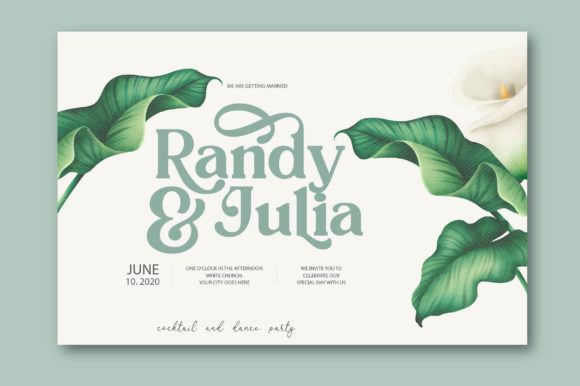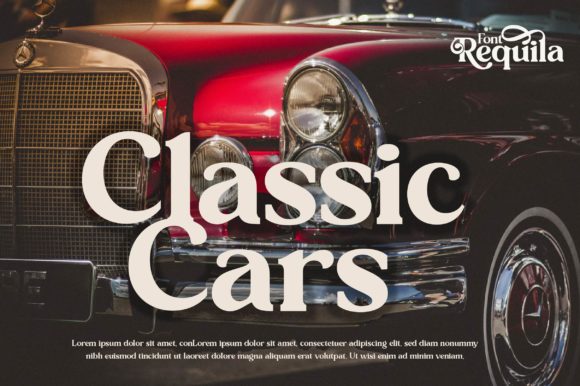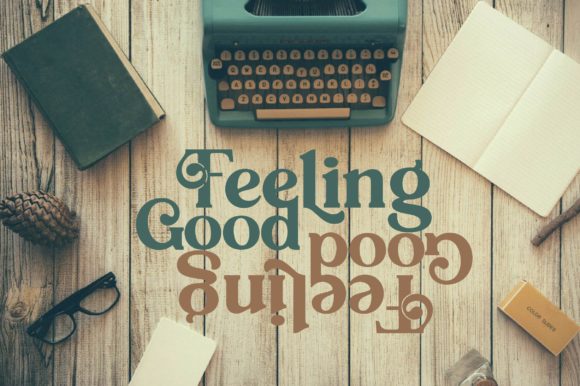
Introduction to Requila Font
Requila feels playfully nostalgic and delivers an incredible vintage aesthetic.
This masterfully designed serif font is a true must-have .